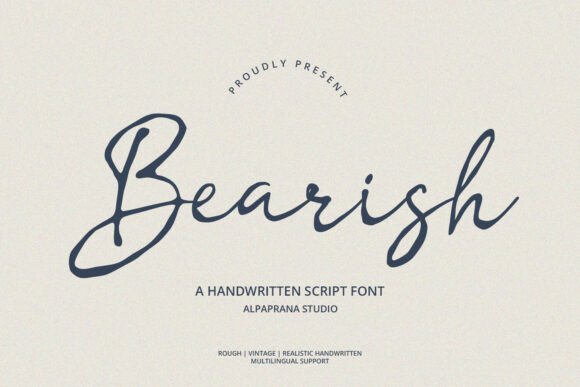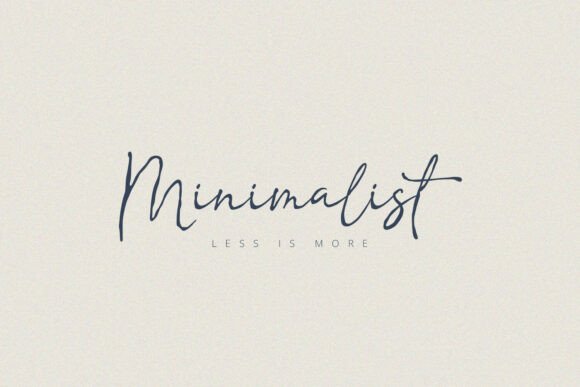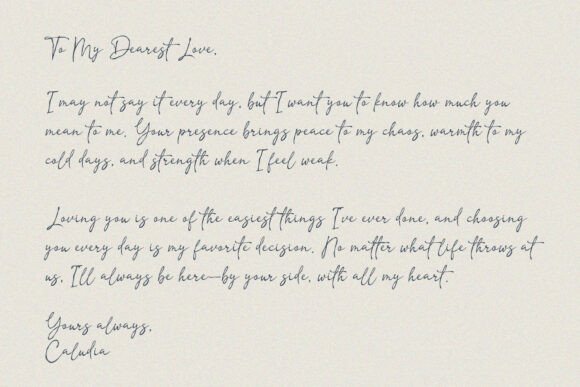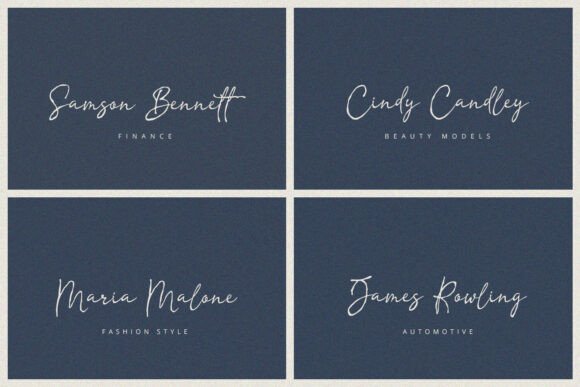
Bearish Font
Bearish is a handwritten script font with chic and classic feels. It will be perfectly used for magazine, packaging, posters, shopping bags, t-shirts, book covers, photography, special events and other design projects.